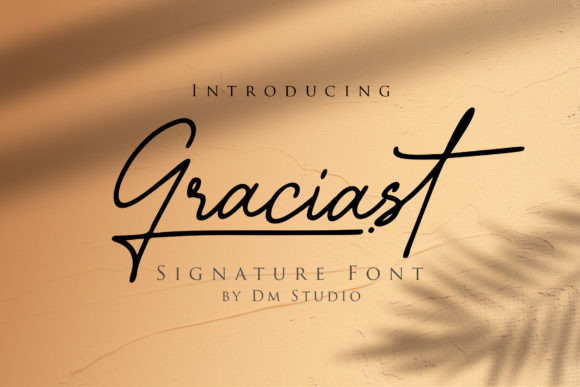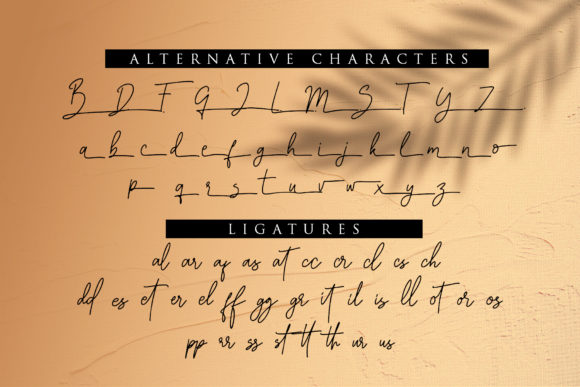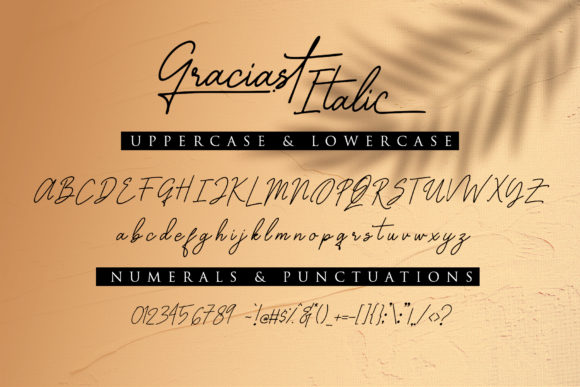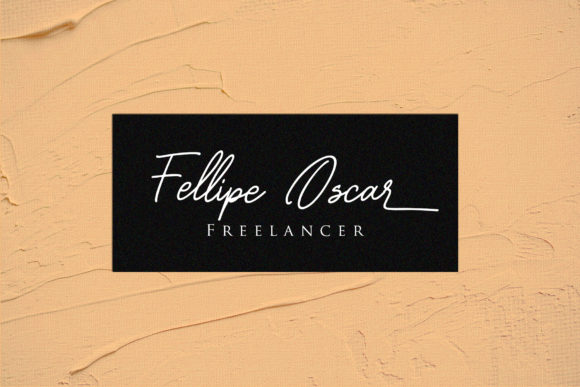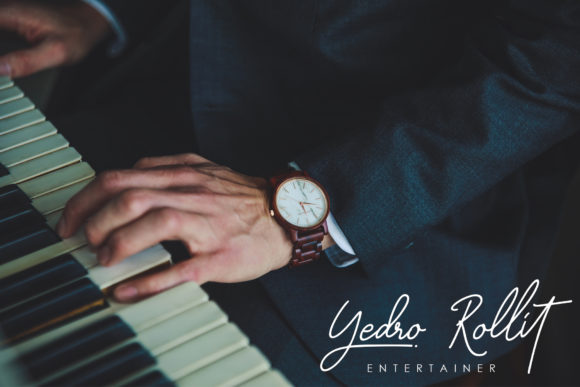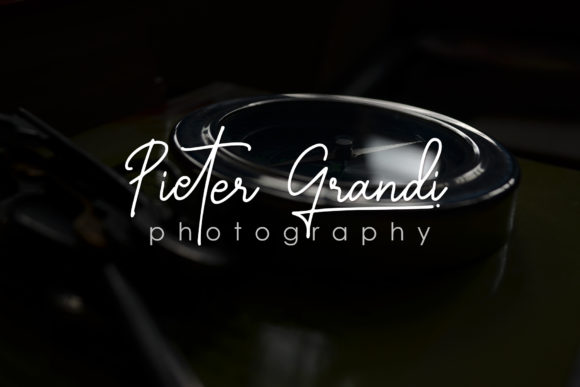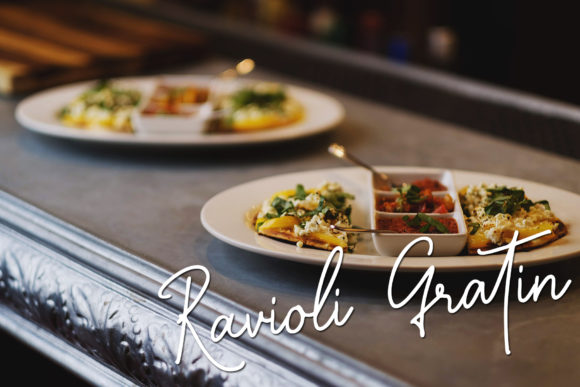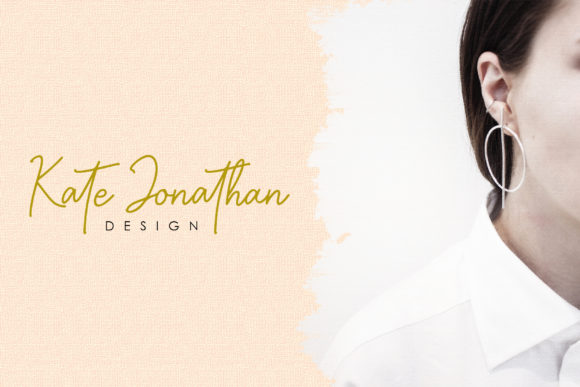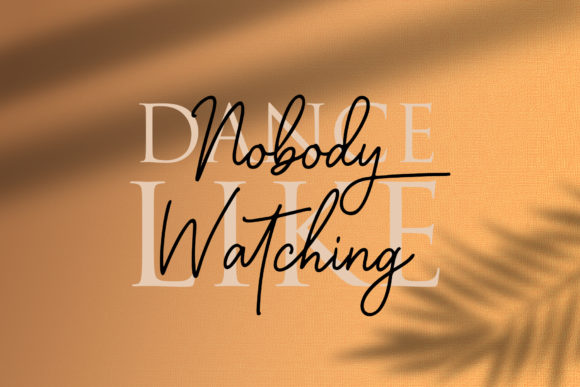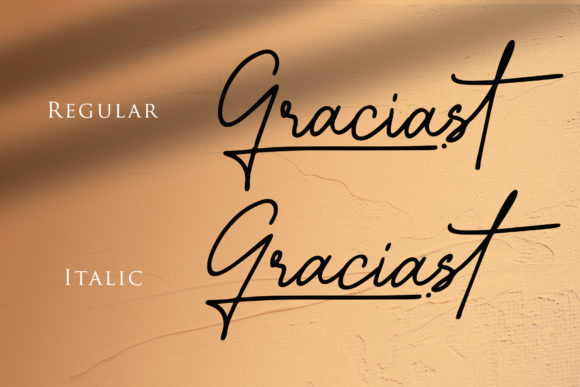
Graciast Font
About Graciast Font
Graciast is a charming script font that can provide classy elegance to any design. Get inspired by its romantic aesthetic!